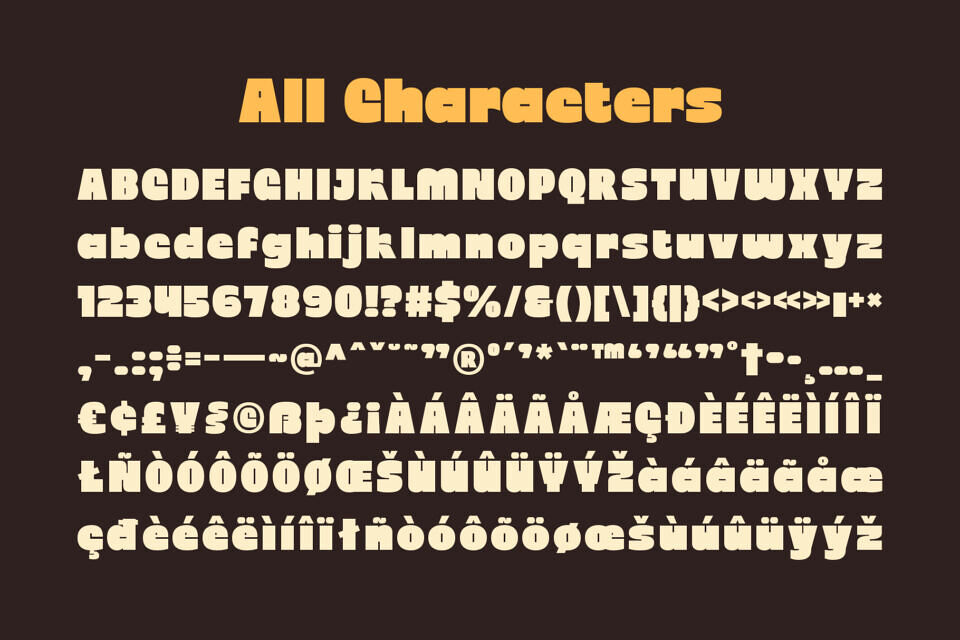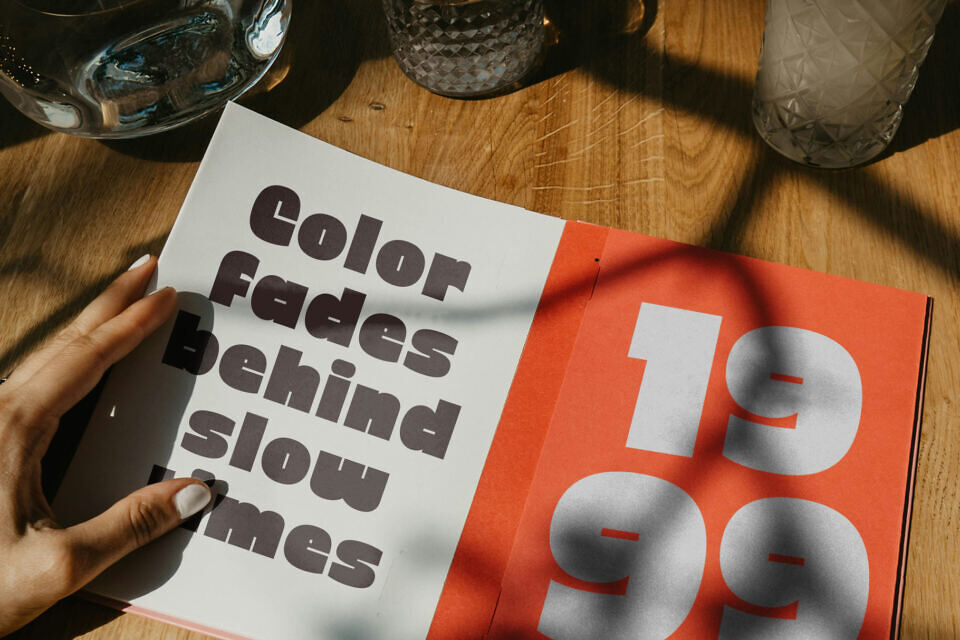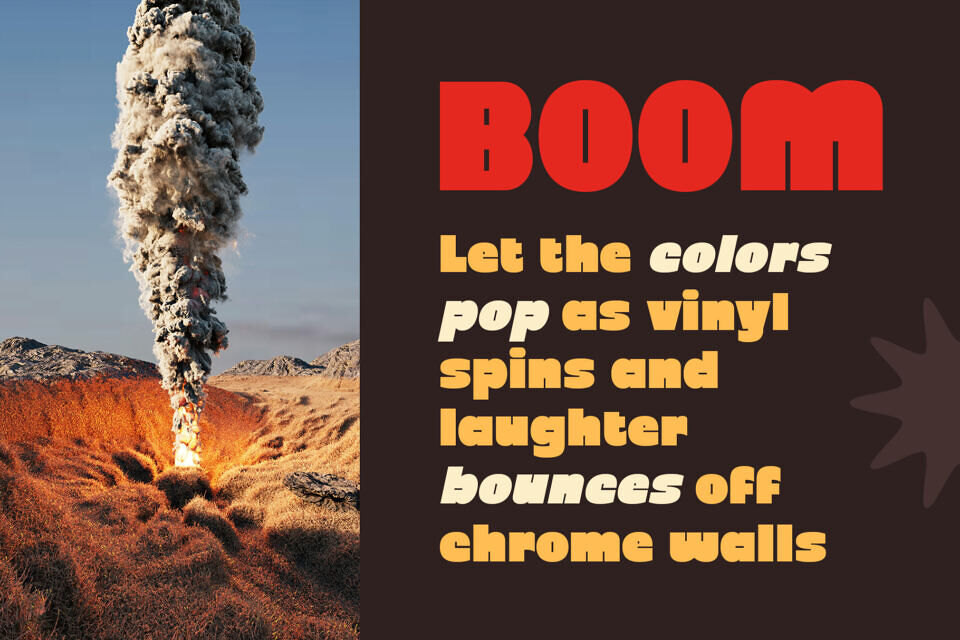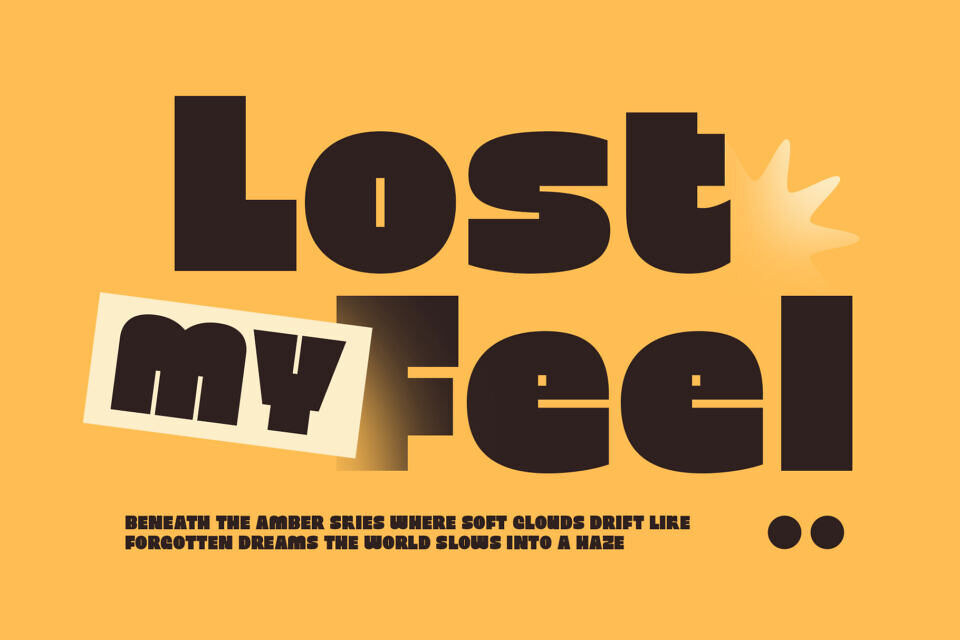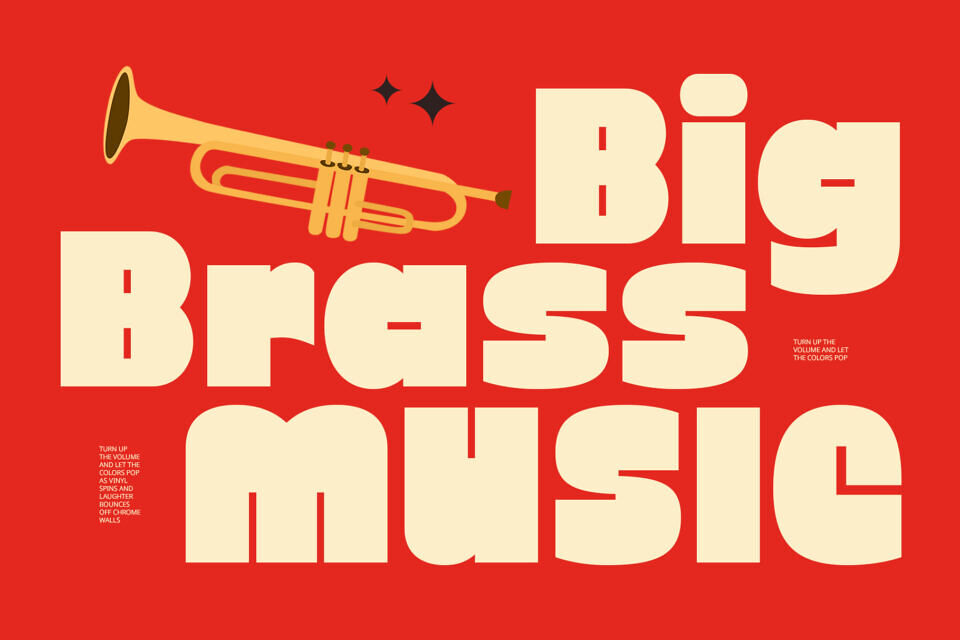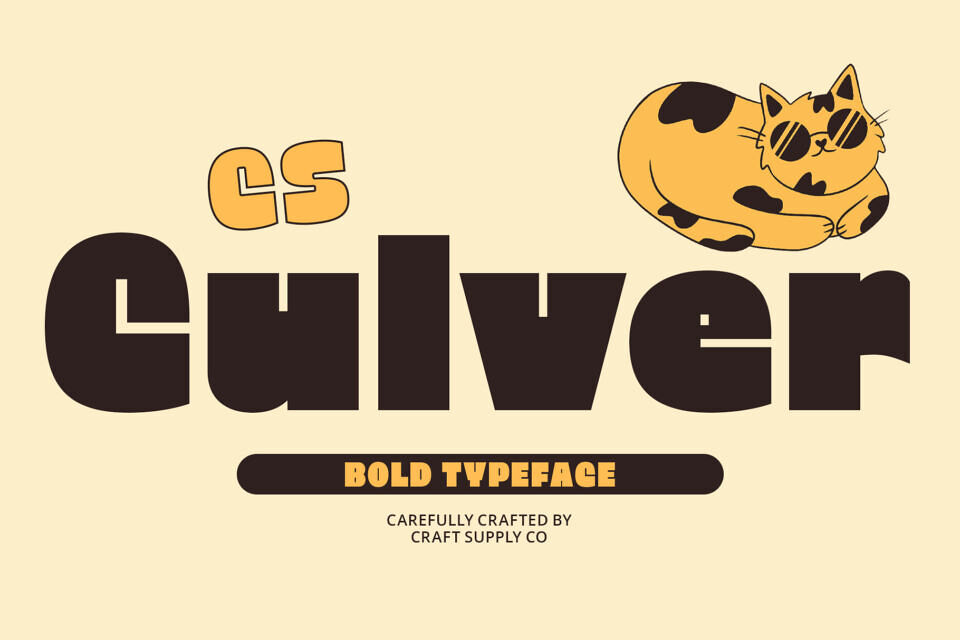
CS Culver Font
CS Culver is a bold sans serif font blending clean structure with a retro funky twist. Its playful letterforms combine vintage 70s influences with modern clarity, creating a striking, versatile typeface.
Ideal for bold, expressive designs, CS Culver adds energy and personality to music posters, event promotions, product packaging, and creative branding. Its geometric forms deliver a memorable, fun vibe while maintaining professional appeal.
Perfect for projects aiming for a nostalgic yet fresh pop-art look, CS Culver makes a vibrant statement with every use.